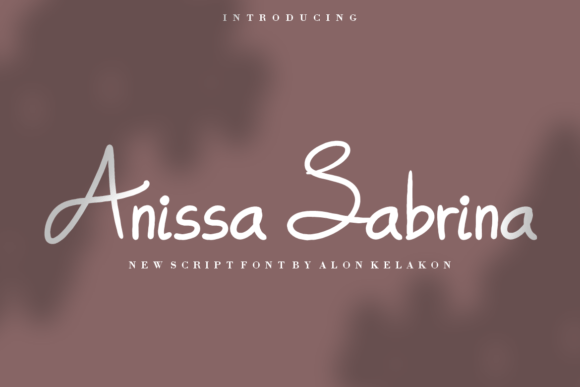
The Elusive Perfect Font: My Encounter with Anissa Sabrina
Ah, the quest for the perfect font – a journey every designer, crafter, and creative hobbyist can relate to. I recall working on a project where I spent hours scouring the internet for a font that exuded elegance, class, and a touch of modernity. My client wanted a sophisticated look that would elevate their brand, and I was determined to deliver. That’s when I stumbled upon Anissa Sabrina, a stunning script font that has since become a staple in my design toolkit.
An Honest Review of Anissa Sabrina
So, what makes Anissa Sabrina so special? Let’s dive into the good stuff and, of course, a few quirks I’ve encountered.
- ✨ Elegant and classy design that’s perfect for high-end projects
- ✅ Modern look that appeals to a wide range of audiences
- 💫 Highly versatile – works well for both digital and print projects
- 🎨 Beautifully crafted to add a personal touch to any art project
While Anissa Sabrina is an exceptional font, there are a few things to keep in mind:
- ⚠️ Some users might find the font a bit too ornate for very casual or playful projects
- 🤔 Limited availability of certain OpenType features in certain software
- Experiment with OpenType features like ligatures and stylistic alternates to add flair
- Dive into the OpenType panel to access advanced features like glyphs and swashes
The Inspiration Behind Anissa Sabrina
While the origins of Anissa Sabrina might not be well-documented, it’s easy to imagine that the designer was inspired by classic calligraphy and modern digital trends. The font likely emerged from a desire to create a versatile, elegant script that could be used across various mediums, from luxury branding to personal stationery.
Q: What makes Anissa Sabrina unique?
A: Anissa Sabrina stands out for its elegant, classy, and modern design, making it perfect for projects that require a sophisticated look.
Q: Is Anissa Sabrina difficult to read?
A: While Anissa Sabrina is a script font and may be more challenging to read in large blocks of text, it’s perfectly legible for titles, headings, and short paragraphs.